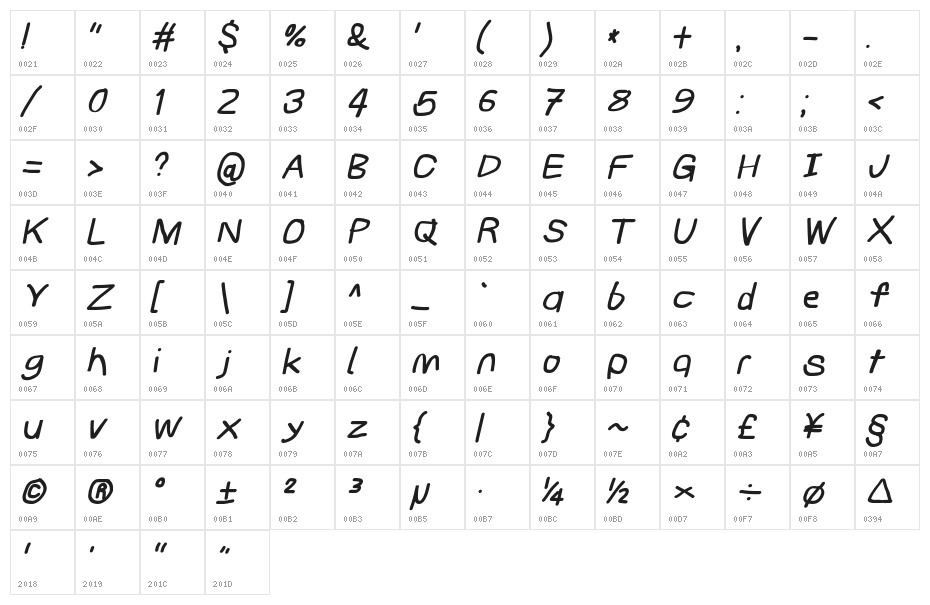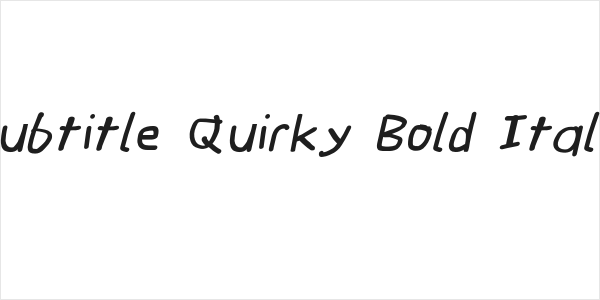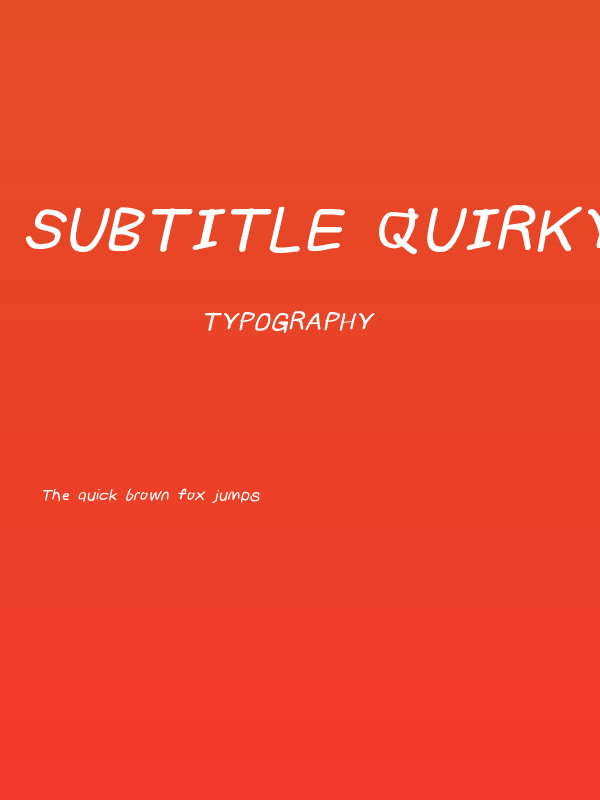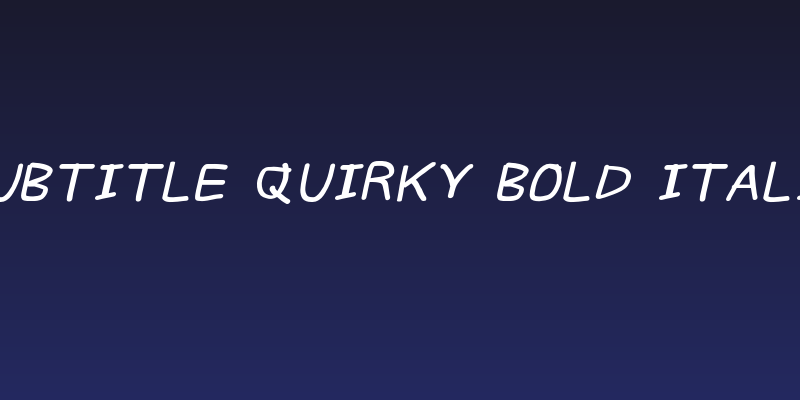
Subtitle Quirky Bold Italic Font
Subtitle Quirky Bold Italic Description
This font features a playful and quirky style with a bold and italicized appearance. The characters are slightly slanted, adding a dynamic and informal feel. The strokes are consistent in thickness, giving it a bold presence without overwhelming the design. The rounded edges and smooth curves contribute to its friendly and approachable look. This font is highly legible, making it suitable for various creative projects that require a touch of personality and flair.
| Overall Style | Quirky, Playful |
| Proposed Projects | Ideal for children's books, playful branding, casual invitations, and creative posters. |